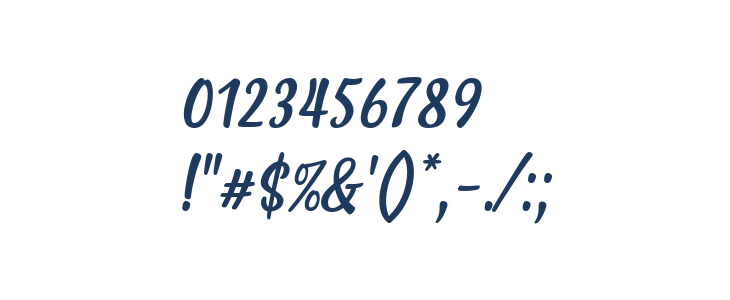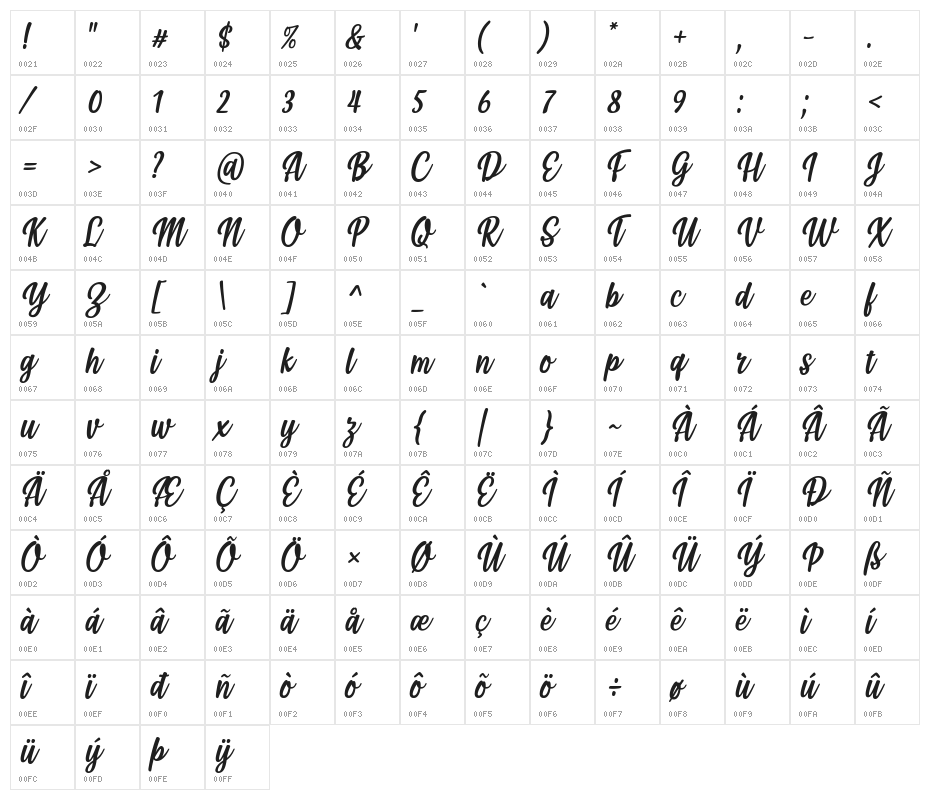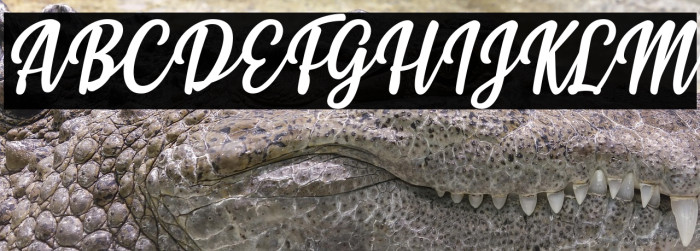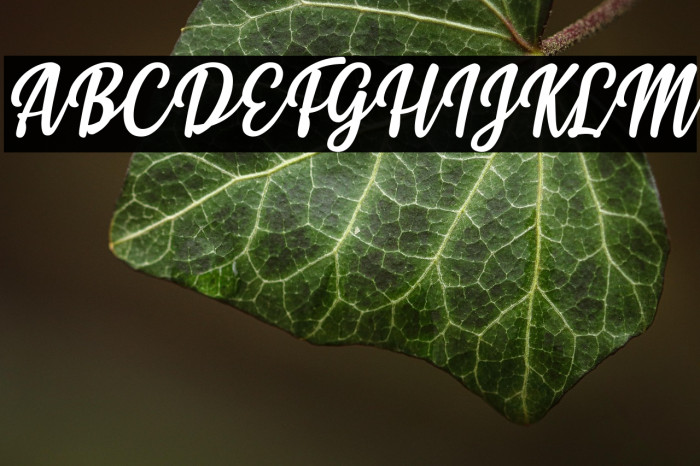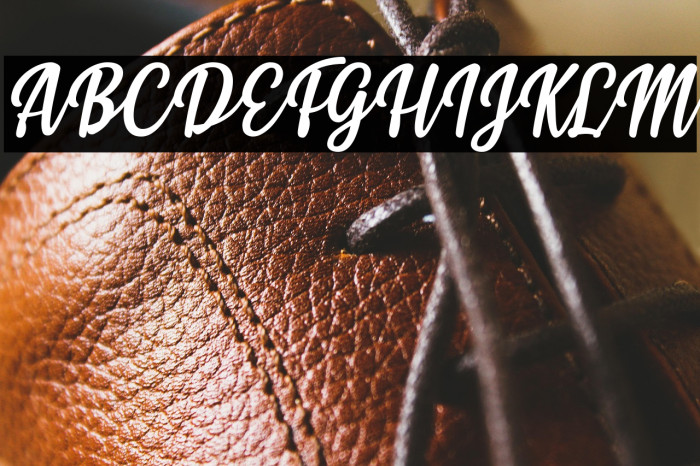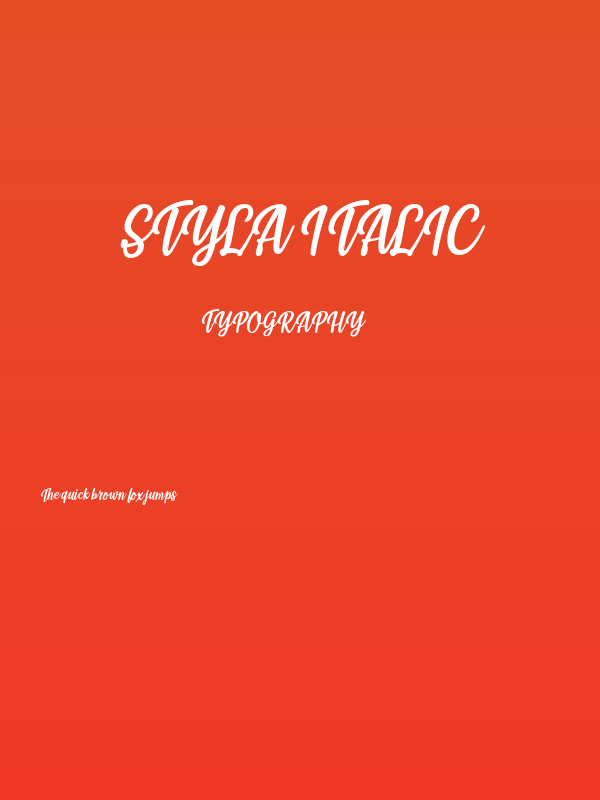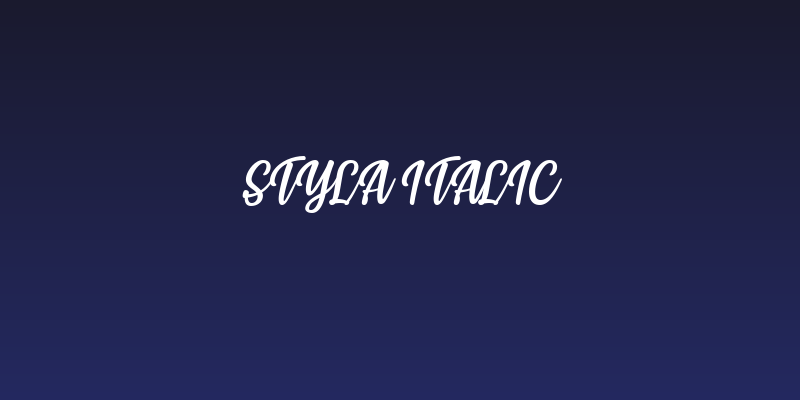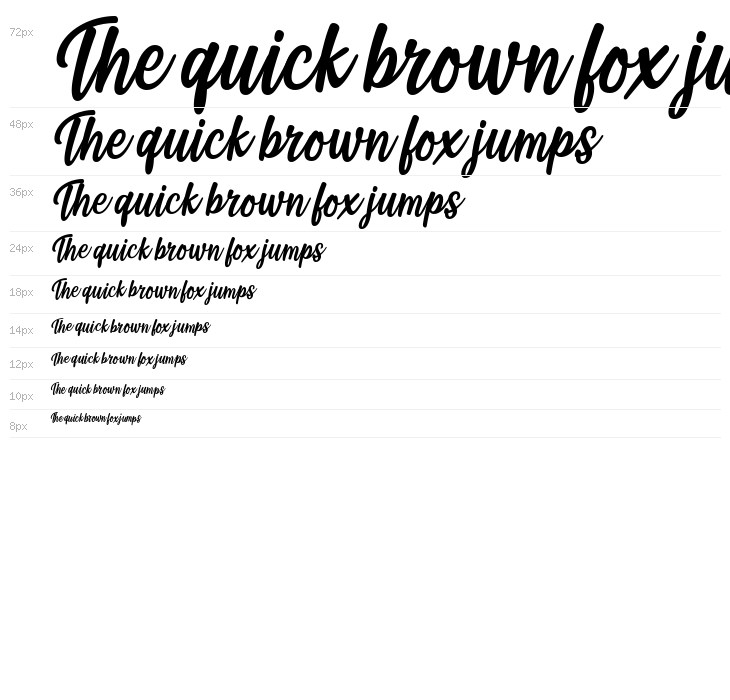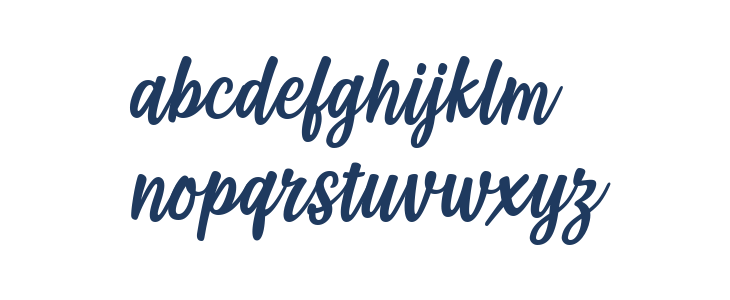
Styla Italic Font
Styla Italic Description
This font exudes a dynamic and flowing style, characterized by its cursive, italicized form. The letters are interconnected, creating a seamless and elegant appearance. The strokes are bold and consistent, providing a strong visual impact. The uppercase letters maintain a uniform height, while the lowercase letters have a playful bounce, adding to the font's lively nature. Numbers and special characters are crafted with the same fluidity, ensuring a cohesive look across all glyphs. This font is ideal for projects that require a touch of sophistication and flair.
| Use Case | Logos, Invitations, Headlines |
| Proposed Projects | Perfect for wedding invitations, elegant branding, and stylish social media graphics. |